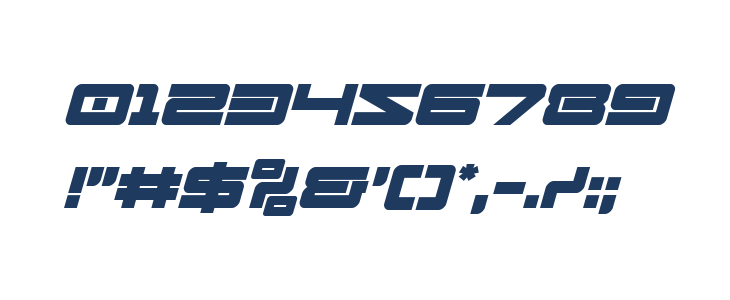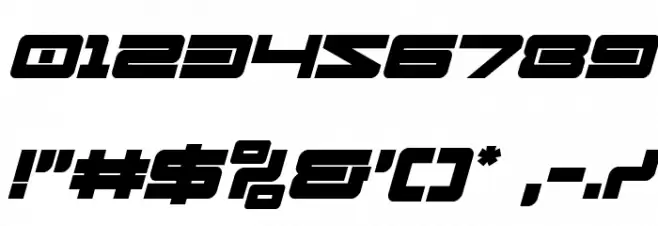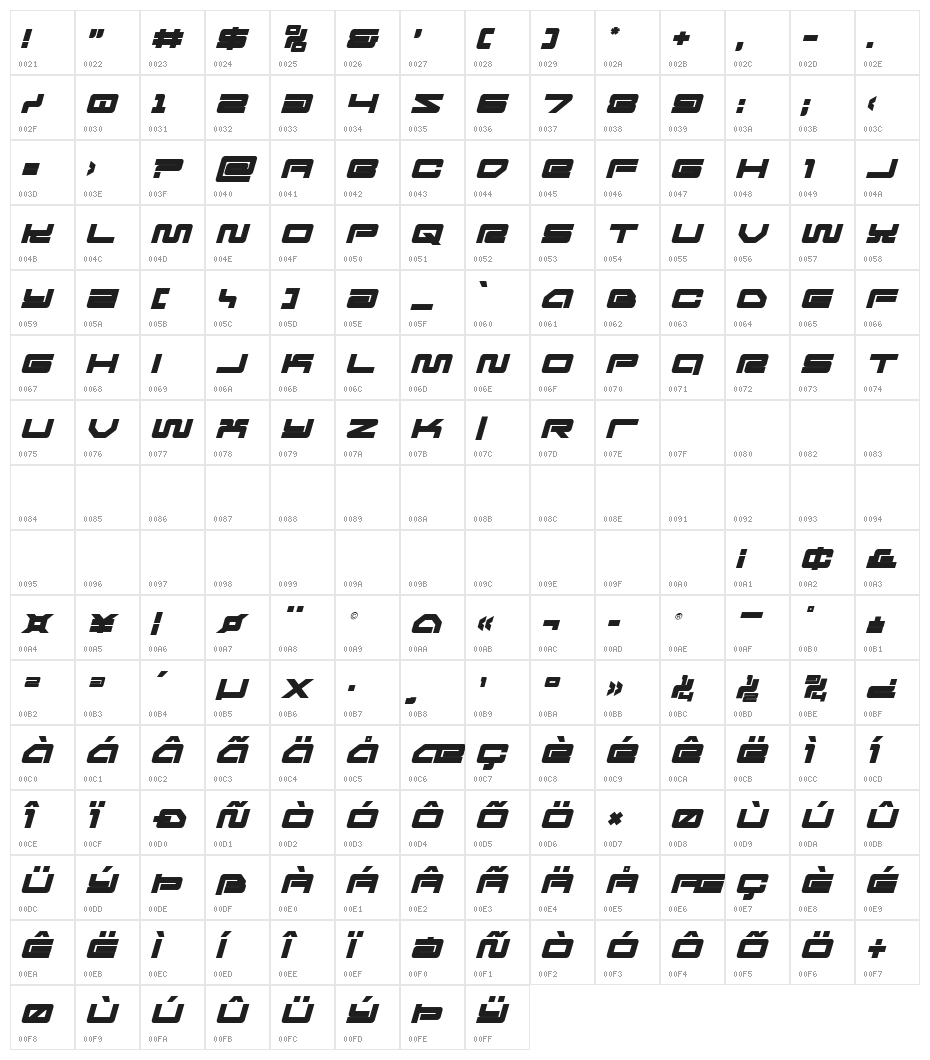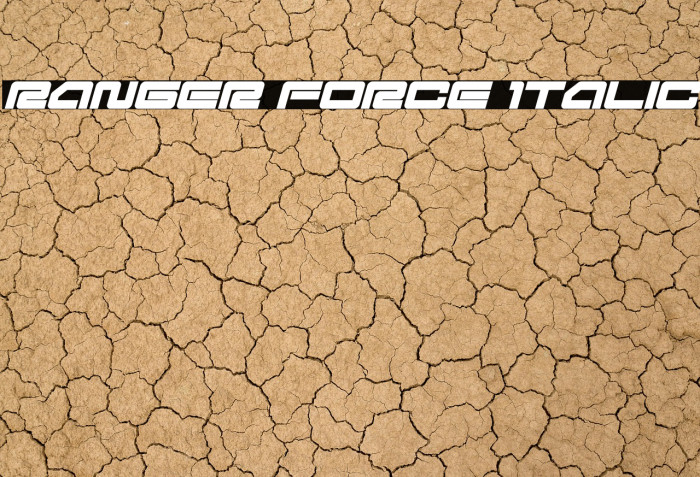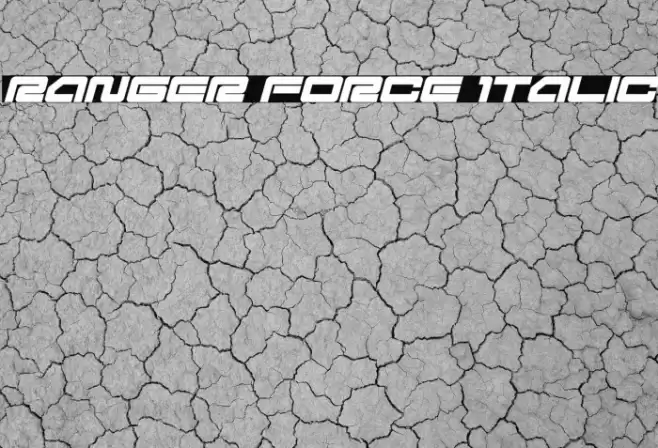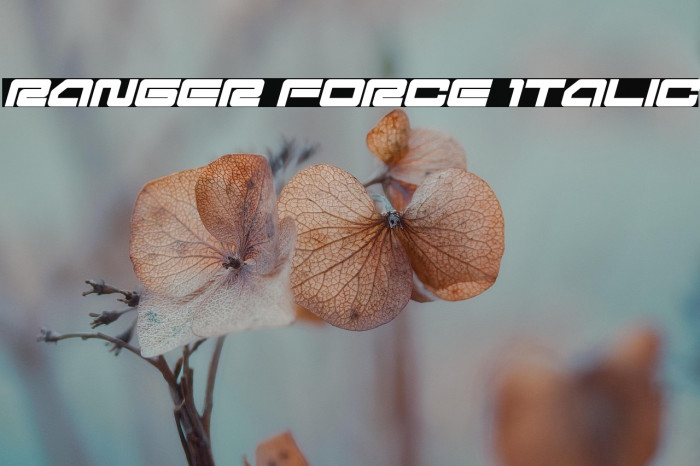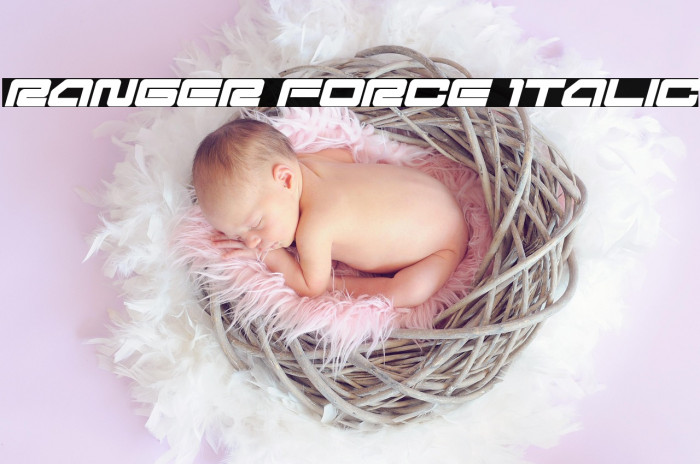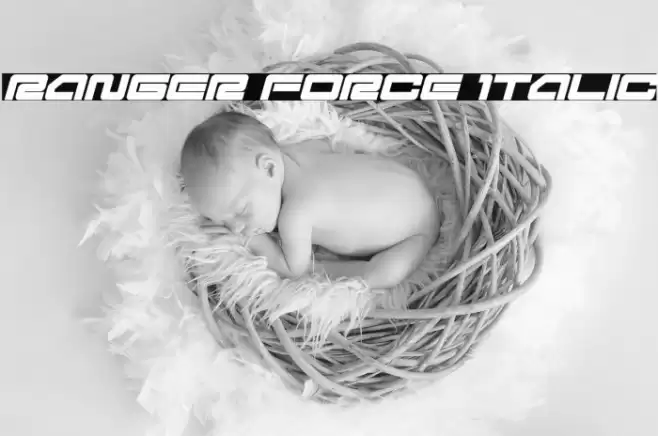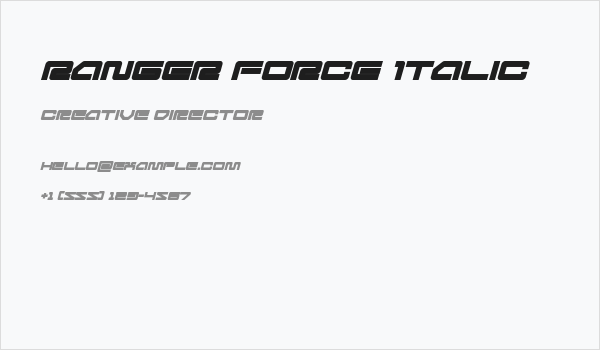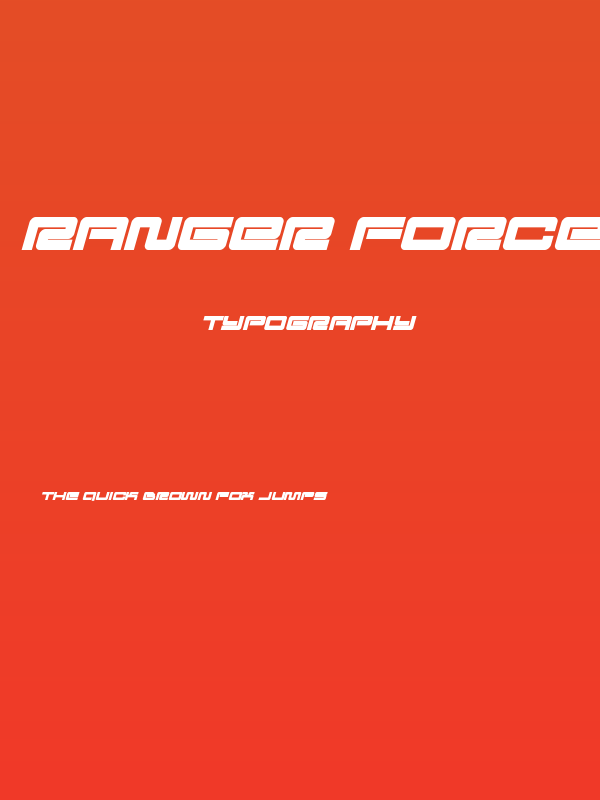
Ranger Force Italic Font
Ranger Force Italic Description
This font features a bold, futuristic design with a strong italic slant, giving it a dynamic and forward-moving appearance. The characters are constructed with sharp angles and a geometric style, creating a sense of speed and modernity. The uppercase and lowercase letters maintain a consistent style, with the lowercase mirroring the uppercase in form but slightly reduced in size. The numerals and special characters follow the same design principles, ensuring uniformity across all glyphs. The font's bold weight and italic style make it stand out, ideal for projects that require a striking and contemporary look.
| Proposed Projects | Ideal for sci-fi themed projects, video game titles, tech branding, and futuristic posters. |